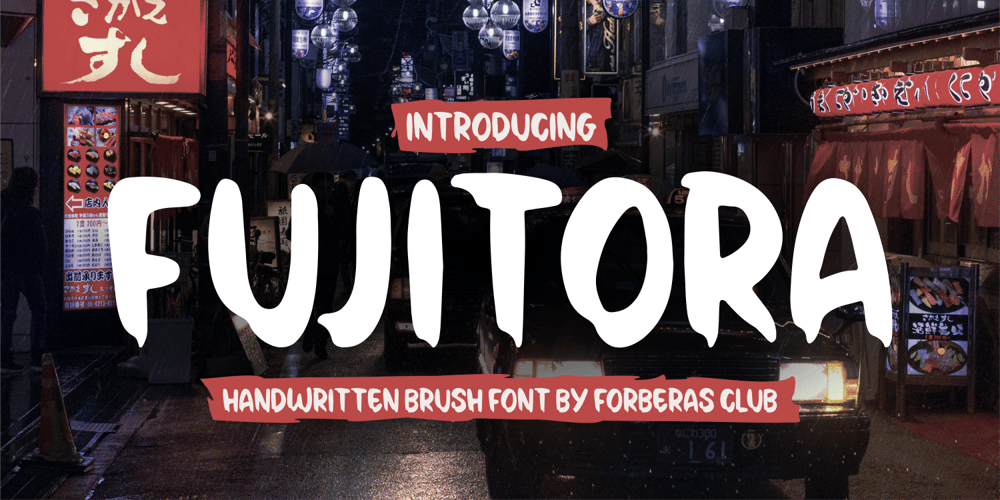
Fujitora Font Family was designed by ANGGI HERMAWAN and published by Forberas Club. Fujitora contains 1 styles and family package options. Fujitora is a fun and whimsical paint brushed display font. This font is perfect for abstract themed designs.